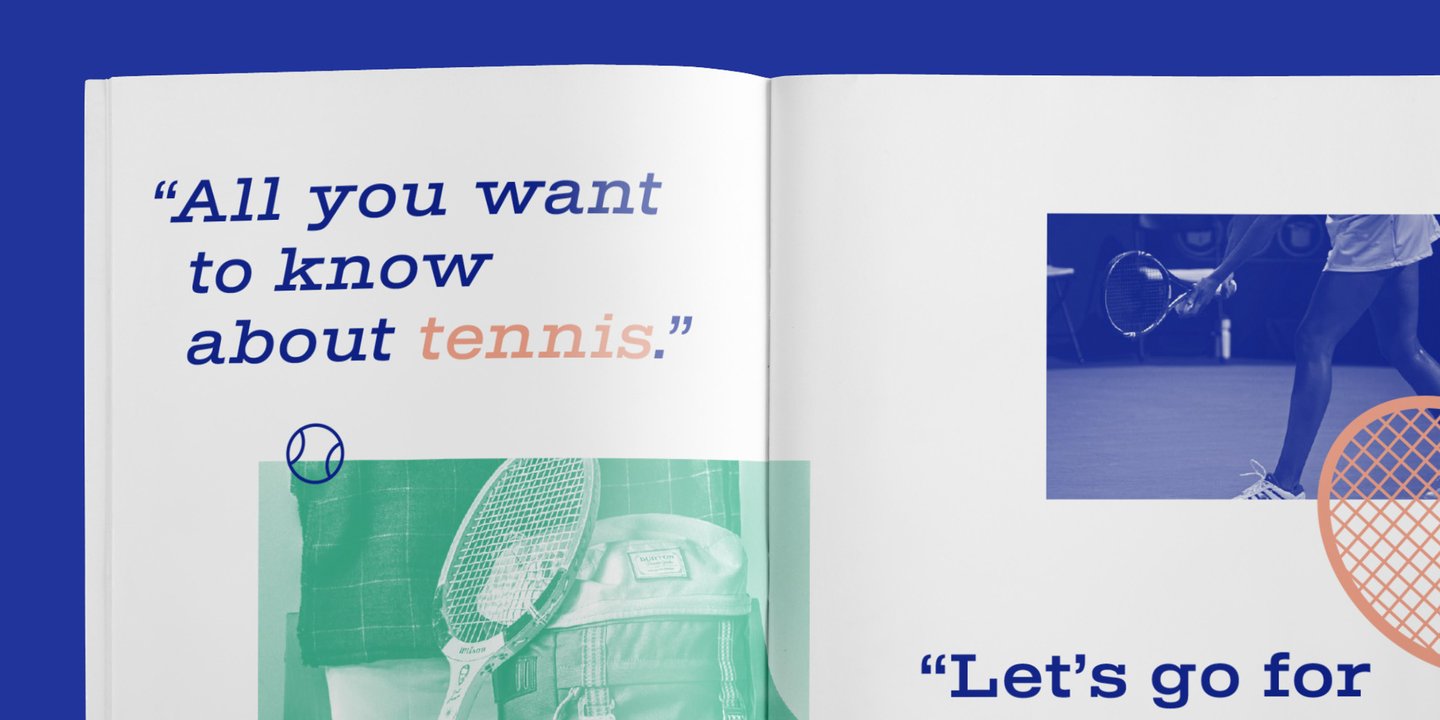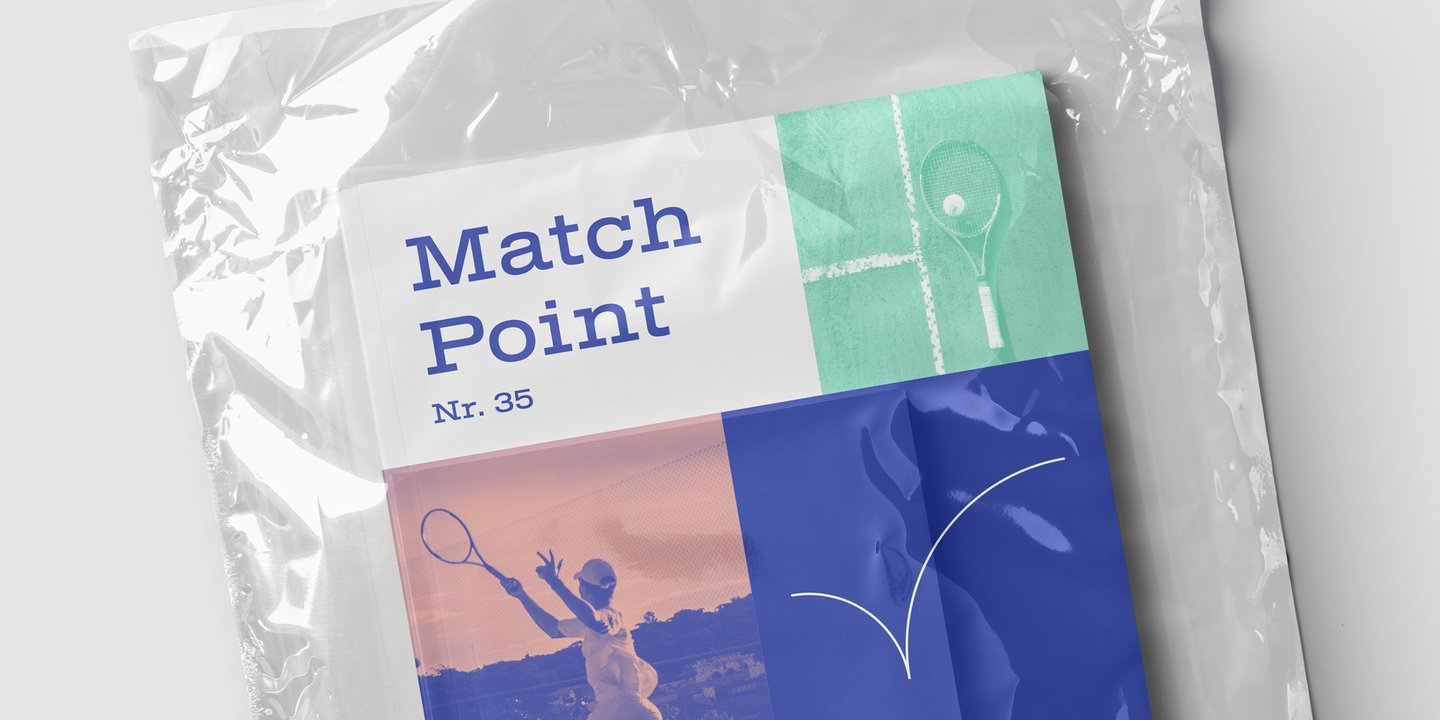
About TEMPER Wide Font Family Temper Wide is an extended neogrotesque slab with unbracketed serifs and square dots, Its hard-working letterforms and industrial heritage make for a no-nonsense look, well suited to editorial design and advertising, It provides an energetic backdrop for fashion and accessories, whether on-product, in campaigns, or branding
Horizon’s the limit! This sturdy font family will be by your side, A neutral, unembellished typeface, ready to make an impact, Designers: Oliver JeschkePublisher: OGJ Type DesignFoundry: OGJ Type DesignDesign Owner: OGJ Type DesignMyFonts debut: Apr 11, 2018 TEMPER Wide